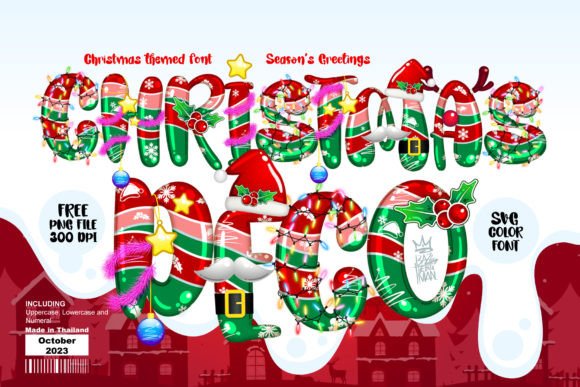
Introducing Christmas Deco Font, the ultimate font choice for all your Christmas-themed designs, shirts, crafts, and cards! Created by the talented BB Type Studios, this adorable and festive color font is guaranteed to add a touch of magic and joy to your projects.
Why settle for ordinary fonts when you can elevate your designs with Christmas Deco? With its vibrant and eye-catching colors, this font will instantly captivate your audience and bring your Christmas creations to life. Whether you're designing holiday cards, personalized gifts, or even festive banners, Christmas Deco is the perfect choice to make your designs stand out from the crowd.
Don't miss out on the opportunity to create stunning and unforgettable Christmas projects. Imagine the delight on your loved ones' faces when they receive a beautifully crafted card or gift adorned with the charming Christmas Deco Font. It's the perfect way to spread holiday cheer and make lasting memories.